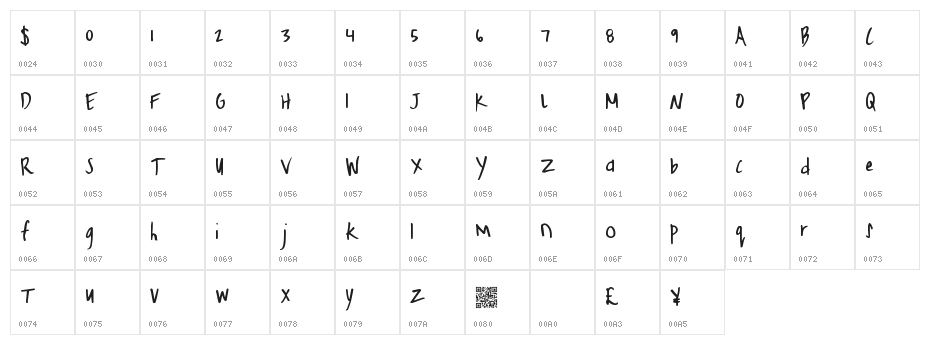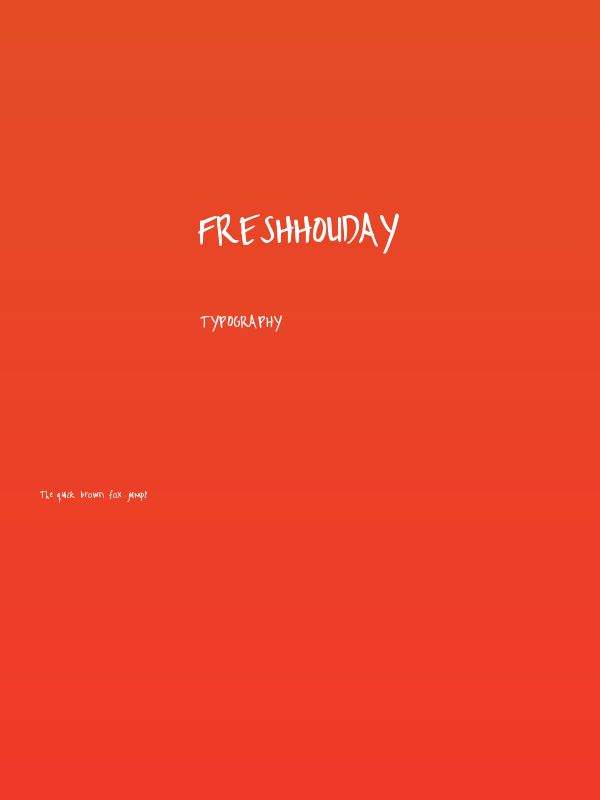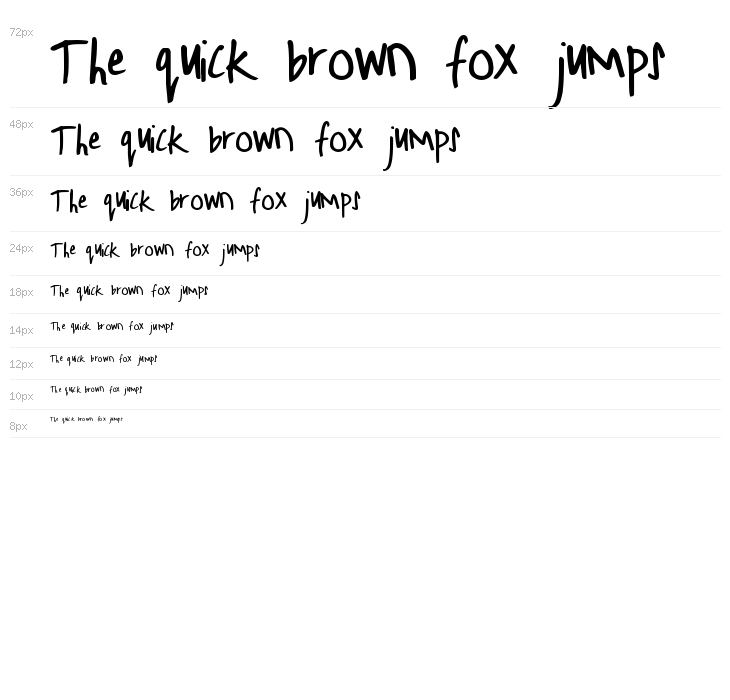
FreshHoliday Font
FreshHoliday Description
This font features a playful and casual handwritten style, characterized by its irregular strokes and slightly tilted characters. The uppercase and lowercase letters maintain a consistent flow, giving it a natural and organic appearance. The numbers and special characters follow the same informal style, making it ideal for projects that require a personal touch. The font's overall design is approachable and friendly, suitable for creative and informal contexts.
| Overall Style | Casual |
| Use Case | Headlines, Logos, Informal text |
| Proposed Projects | Ideal for greeting cards, invitations, personal branding, and social media graphics. |